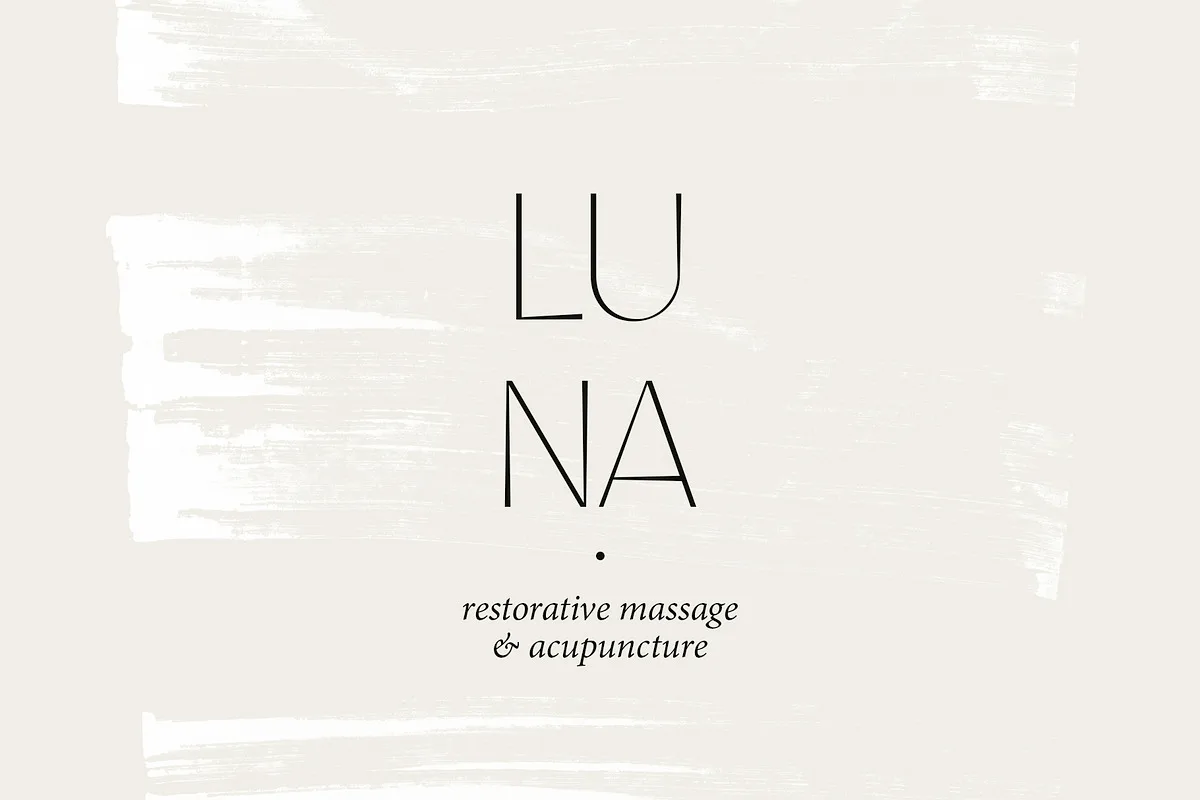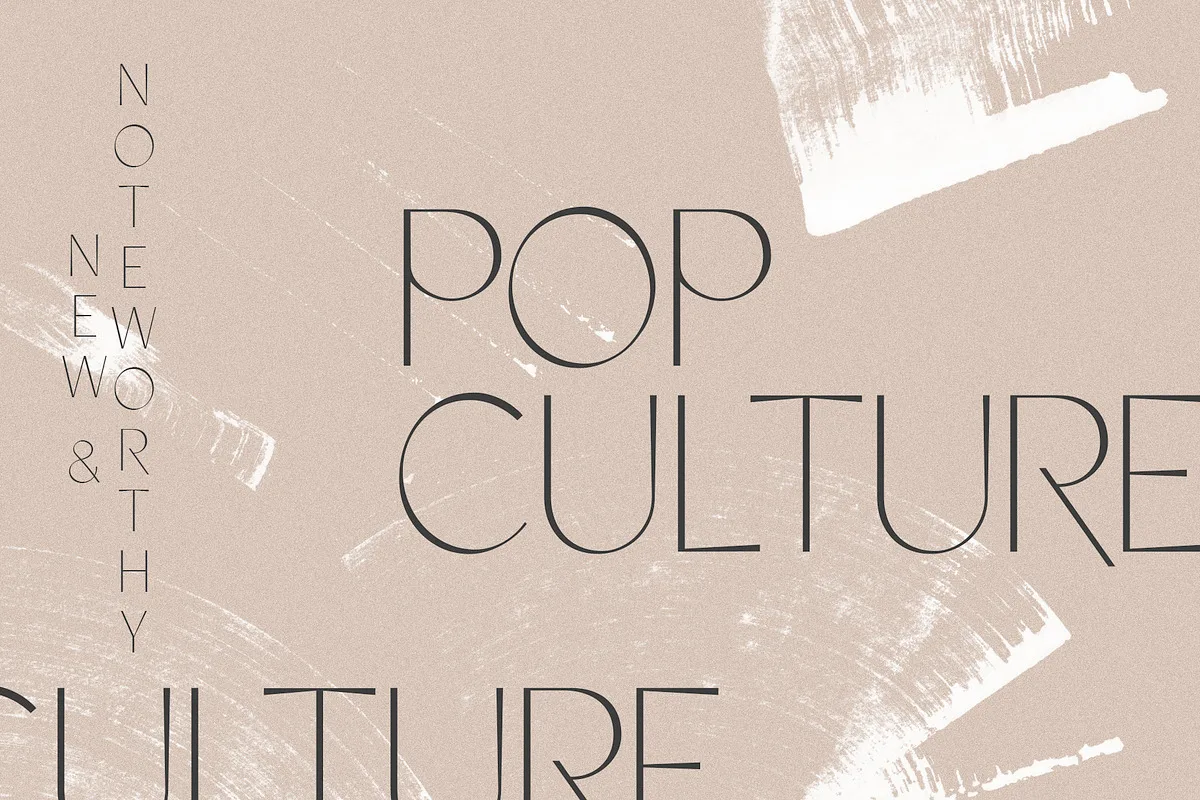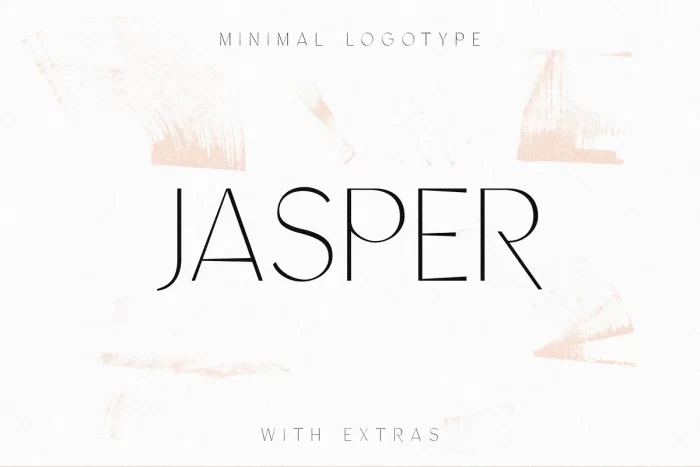
Jasper is a beautiful uppercase font that was designed for clean, minimal logos and gorgeous headings. Its clean, tapered lines create visual interest while its simple structure makes it easy to read. Jasper also comes with bonus textures and editable logo templates! Try it out in the sample box above, and then download Jasper to use for your next project!
- Uppercase letters (including alternate letters for B and R)
- Numbers & extended punctuation
- Foreign language accents & characters for the international designer